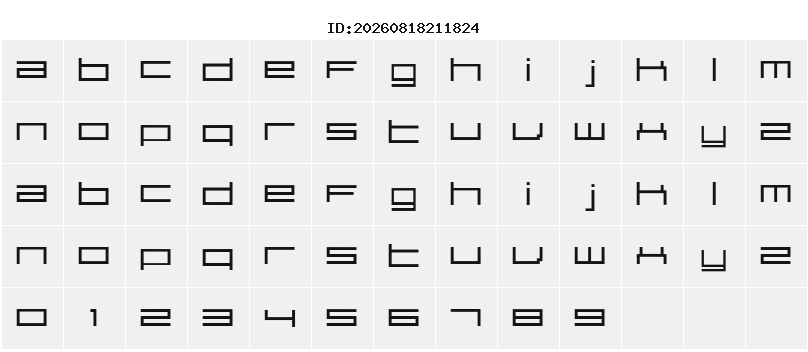
• Font Name: SirClive
• Full Font Name: SirClive
• Copyright: A tribute to the man who REALLY started home computing!!!
About SirClive.ttf
SirClive.ttf is a modern, elegant sans-serif font designed for ultimate readability and visual harmony. Perfect for branding, headlines, web design, and print materials.